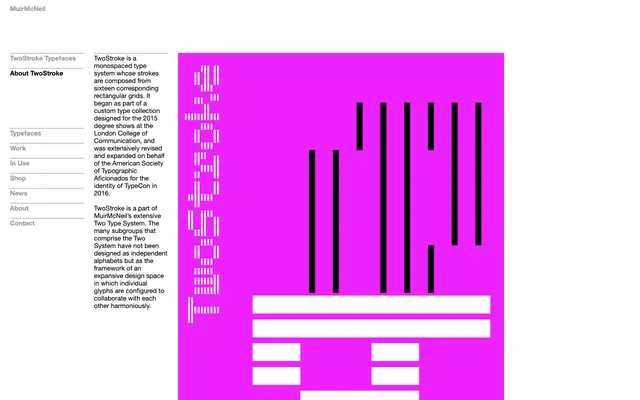
TwoStroke
Muirmcneil · MuirMcNeil · 2015
A monospaced type system built from sixteen rectangular grids, originating as a custom commission for London College of Communication's 2015 degree shows before being expanded for TypeCon 2016.
Constructed from sixteen corresponding rectangular grids, TwoStroke sits within MuirMcNeil's broader Two Type System, a framework in which individual glyphs are designed to collaborate rather than operate as isolated alphabets. The system was first developed for a custom type collection at London College of Communication's 2015 degree shows, then revised and extended for the American Society of Typographic Aficionados' TypeCon 2016 identity. Its strict modular logic makes it well suited to systematic, grid-driven visual identities.
TwoStroke is explicitly described as a monospaced type system; its construction from rectangular grids gives it a strongly geometric character, placing it firmly in the geometric mono subcategory.